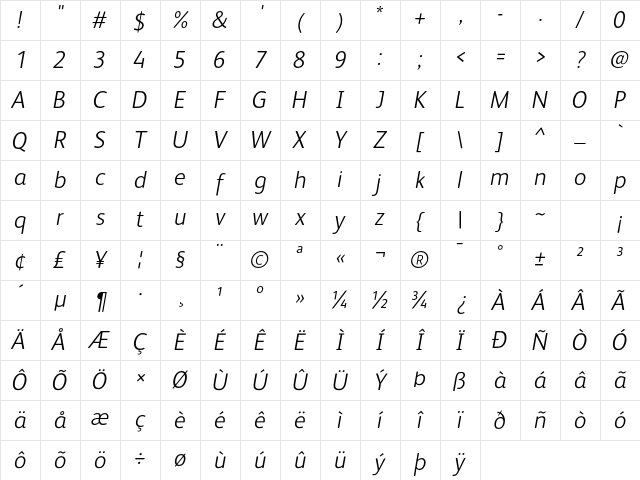
FSAlbert Light Italic
Design Context for FSAlbert
FSAlbert is a composed and adaptable typeface that performs quietly and consistently across a wide range of design contexts. The slanted form adds forward momentum and visual energy. Its slender proportions lend an understated elegance to any composition.
Pro Tip: Use FSAlbert for emphasis, pull quotes, and subheadings where its slanted energy can add rhythm to the layout.
Who designed the FSAlbert Light Italic font?